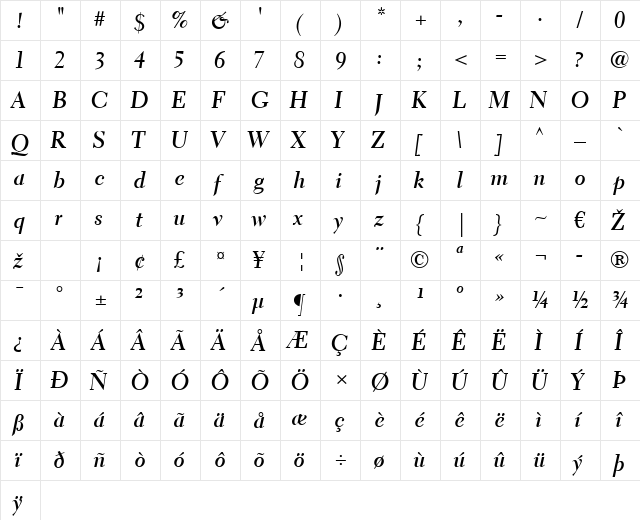
Electra LT Display Bold Italic Font Preview
Design Context for Electra LT Display Typeface
Electra LT Display brings ornamental detail and strong personality to headlines and identities, where visual impact matters more than quiet functionality. Its italic angle brings a sense of urgency and motion to the letterforms. Its bold stroke weight gives it real presence on the page.
Font Pairing: Pair with a clean neutral sans-serif for body copy to let Electra LT Display's character lead without overwhelming the composition.
Pro Tip: Use Electra LT Display exclusively at display sizes — it was designed to be seen, not read at length. Let a neutral companion handle body copy.